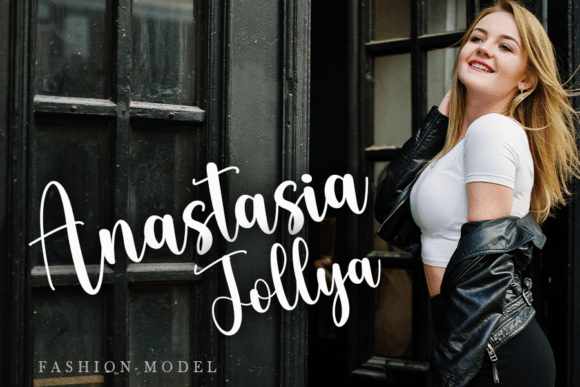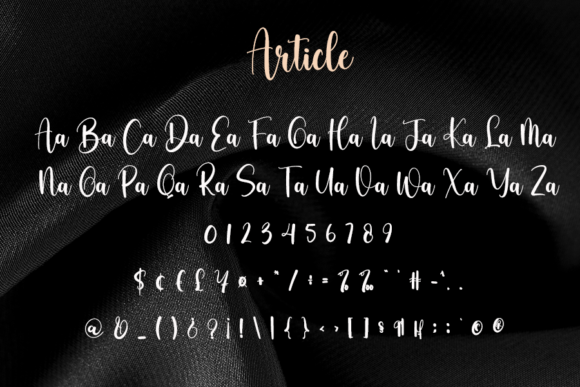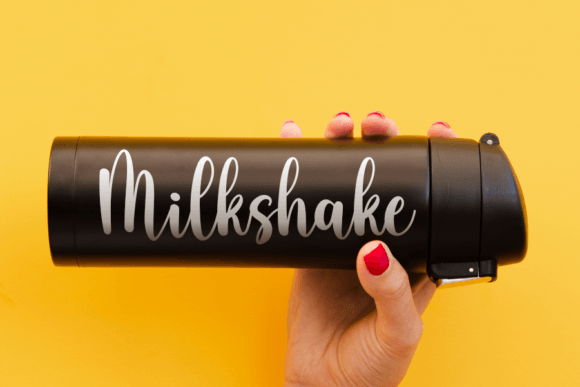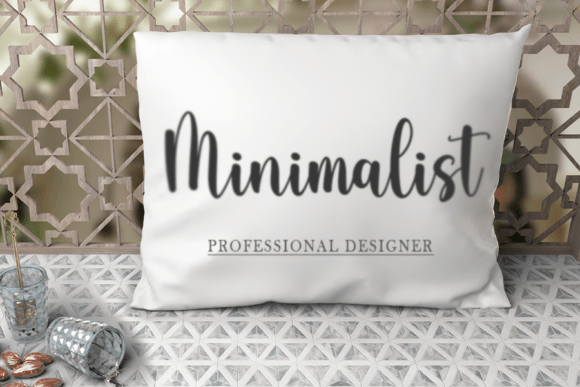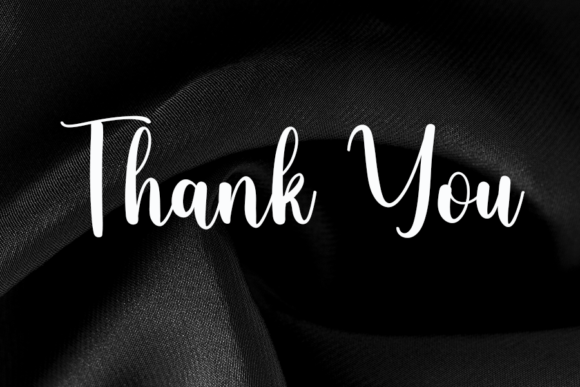
Introducing Article Font: Elevate Your Designs with Timeless Elegance
Are you tired of using generic fonts that lack personality and style? Look no further than Article Font, a stunning handwritten font that brings a touch of classic sophistication to your designs. Inspired by the timeless beauty of traditional calligraphy, Article Font is the perfect choice for designers and crafters seeking to add a level of elegance and refinement to their projects.
A Contemporary Take on Classic Calligraphy
Article Font is a masterfully crafted font that seamlessly blends traditional calligraphy techniques with a modern, contemporary atmosphere. The result is a font that exudes sophistication and poise, making it ideal for a wide range of design applications. Whether you’re working on a logo, branding project, or marketing materials, Article Font is sure to make a lasting impression.
Balanced and Varied: The Art of Versatility
One of the standout features of Article Font is its exceptional balance and versatility. The font has been carefully designed to provide a range of variations, allowing you to add depth and interest to your designs. From elegant headings to beautiful body text, Article Font adapts effortlessly to any design requirement. This versatility makes it an excellent choice for designers and crafters who value flexibility and creativity.
Impeccable Form: The Mark of Quality
Article Font boasts impeccable form, with each letter meticulously crafted to ensure a high level of legibility and aesthetic appeal. The font’s precise lines, curves, and swashes all work together to create a truly stunning visual experience. Whether you’re designing for print or digital platforms, Article Font’s exceptional form ensures that your projects will look polished and professional.
Enhance the Beauty of Your Projects
With Article Font, you can elevate the beauty of your projects and take your designs to the next level. The font’s classic, sophisticated style makes it perfect for a wide range of applications, including:
- Wedding and event invitations
- Marketing materials and advertising
- Stationery and lettering
Why Choose Article Font?
So why choose Article Font over other fonts on the market? Here are just a few compelling reasons:
- Unique style: Article Font offers a distinctive, stylish aesthetic that sets it apart from more generic fonts.
- High legibility: The font’s clear, precise lines ensure excellent legibility, even at smaller sizes.
- Versatility: Article Font adapts effortlessly to different design requirements, making it an excellent choice for a wide range of applications.
- Elegance and sophistication: The font’s classic, timeless style adds a touch of refinement and poise to any design.
Get Creative with Article Font
Ready to experience the elegance and sophistication of Article Font for yourself? Whether you’re a designer, crafter, or DIY enthusiast, this exceptional font is sure to inspire your creativity and take your projects to new heights. With its timeless style, impeccable form, and versatility, Article Font is the perfect choice for anyone seeking to add a touch of classic sophistication to their designs.
In conclusion, Article Font is a truly exceptional font that offers a unique blend of classic style, versatility, and elegance. Whether you’re working on a professional design project or a personal crafting endeavor, this font is sure to make a lasting impression. So why wait? Discover the beauty of Article Font today and elevate your designs to new heights of sophistication and refinement.